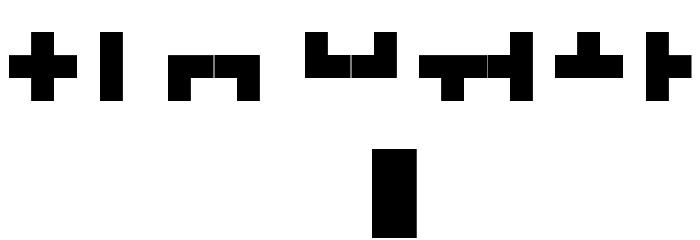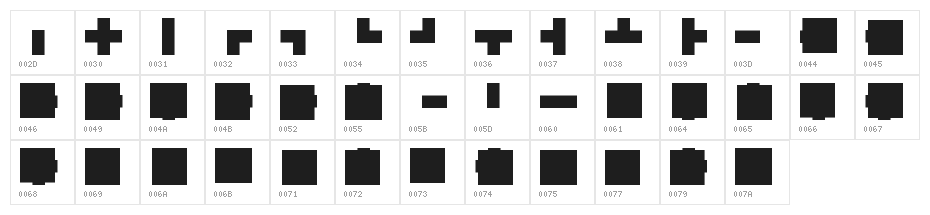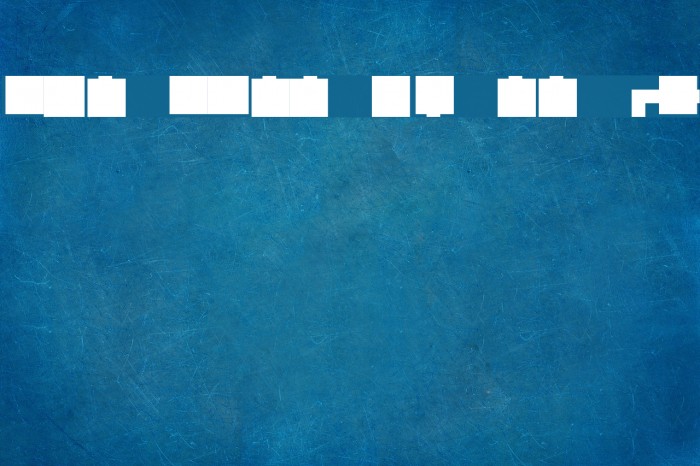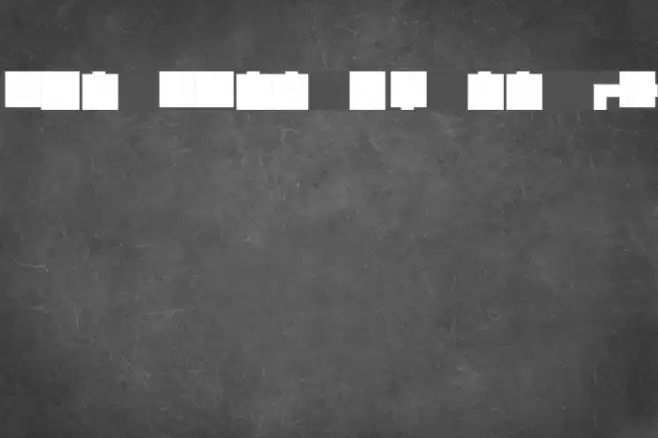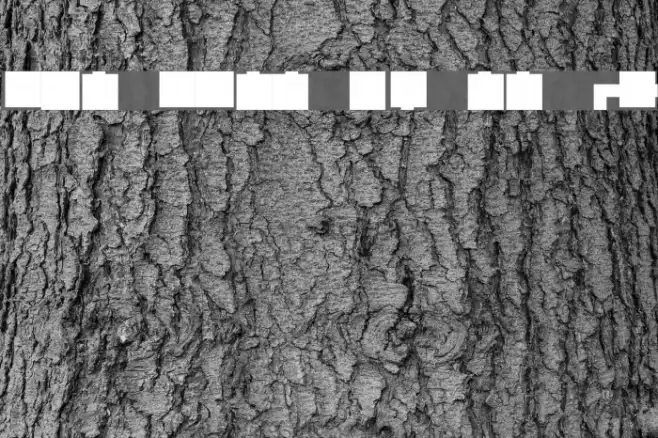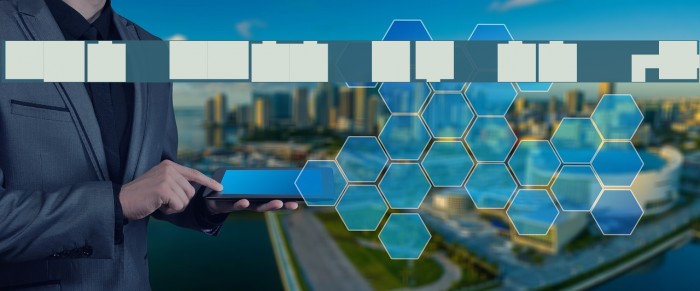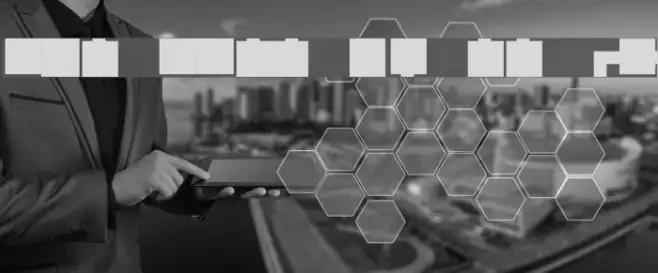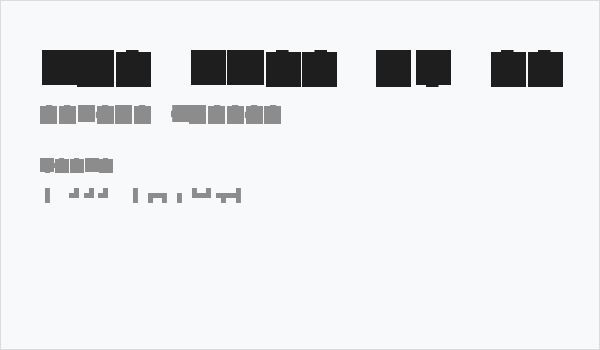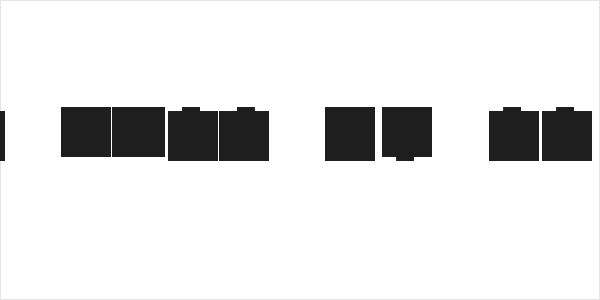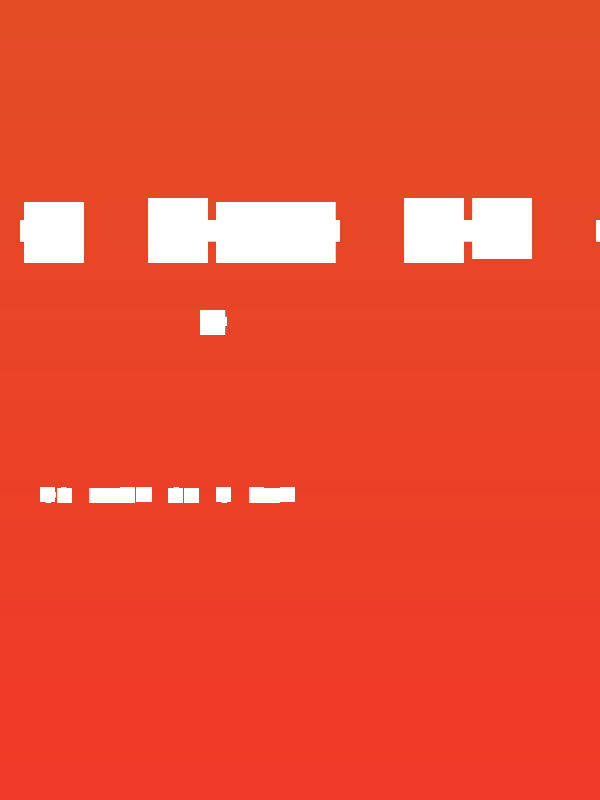
Maze Maker Solid Level 2F Font
Maze Maker Solid Level 2F Description
This font features a bold, geometric design with a blocky and solid appearance. Each character is constructed with thick, uniform strokes, creating a sense of stability and strength. The font's style is reminiscent of digital or pixelated designs, making it suitable for modern and tech-oriented projects. The uppercase and lowercase letters maintain a consistent height, contributing to a monospaced feel. The numbers and special characters are designed with the same boldness, ensuring uniformity across all glyphs. This font's unique style makes it stand out, ideal for eye-catching headlines or creative digital art.
Use CaseHeadlines, Logos, Digital Art
Proposed ProjectsIdeal for tech-themed designs, digital art, video game graphics, and modern branding.